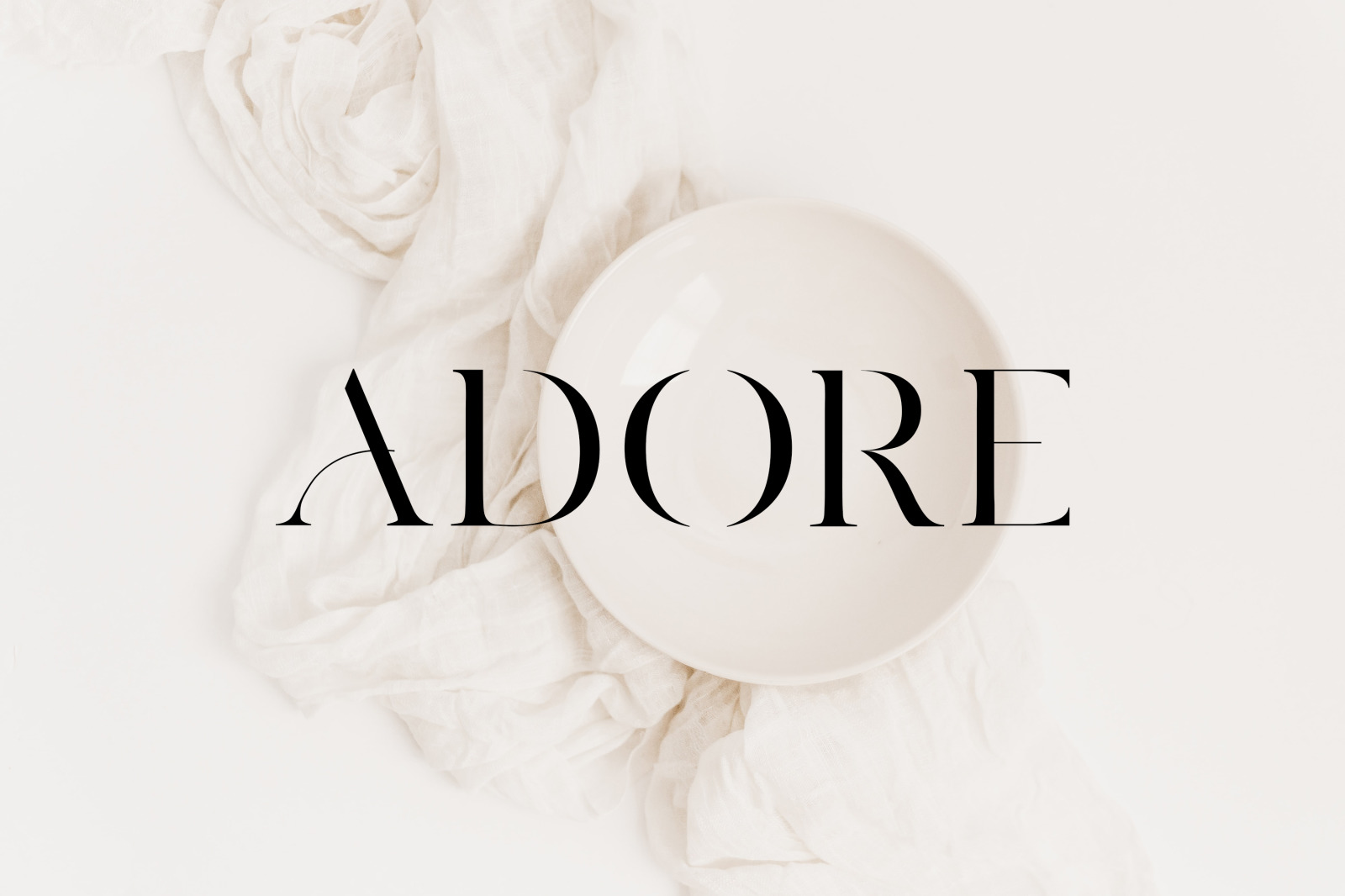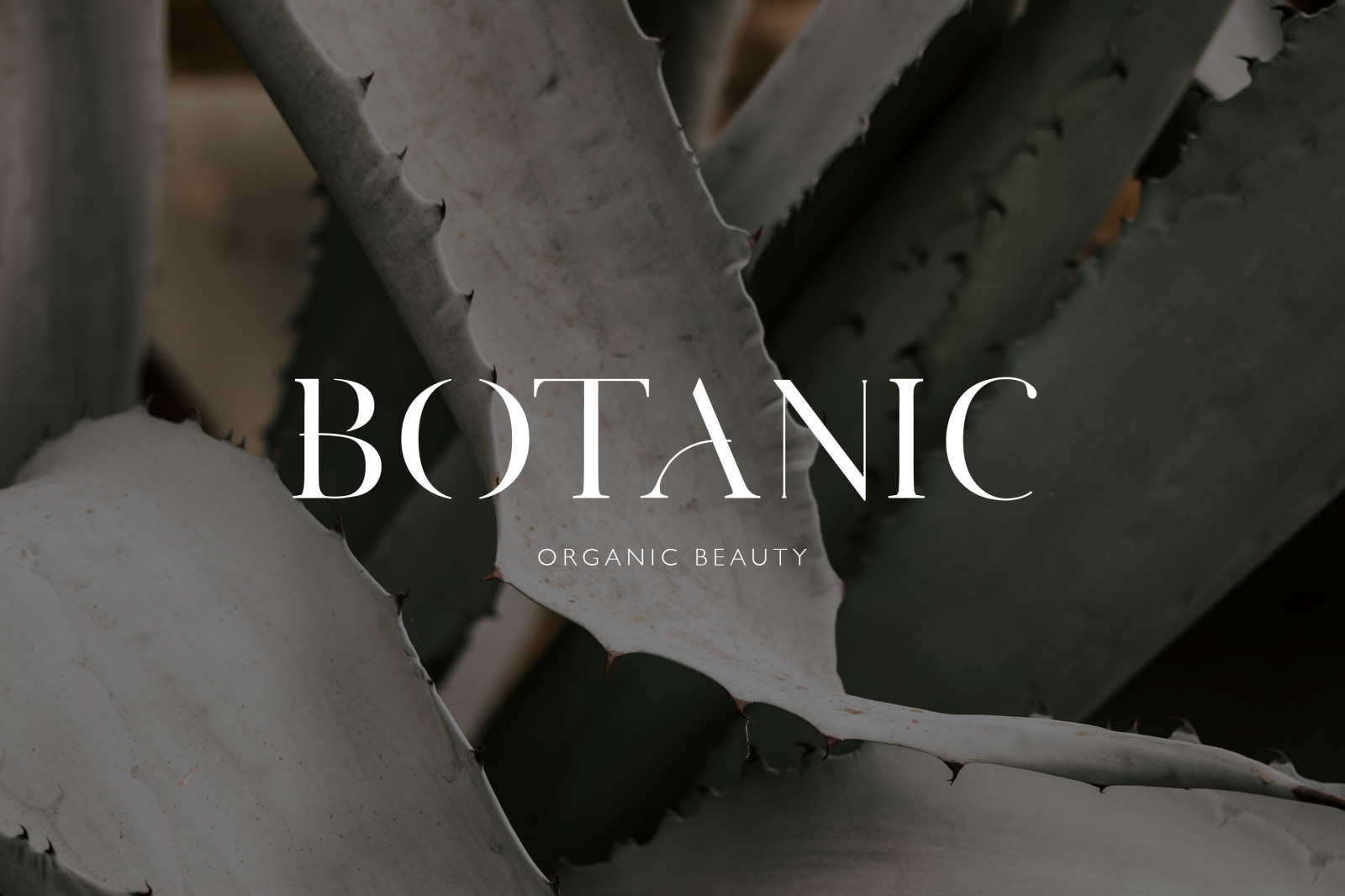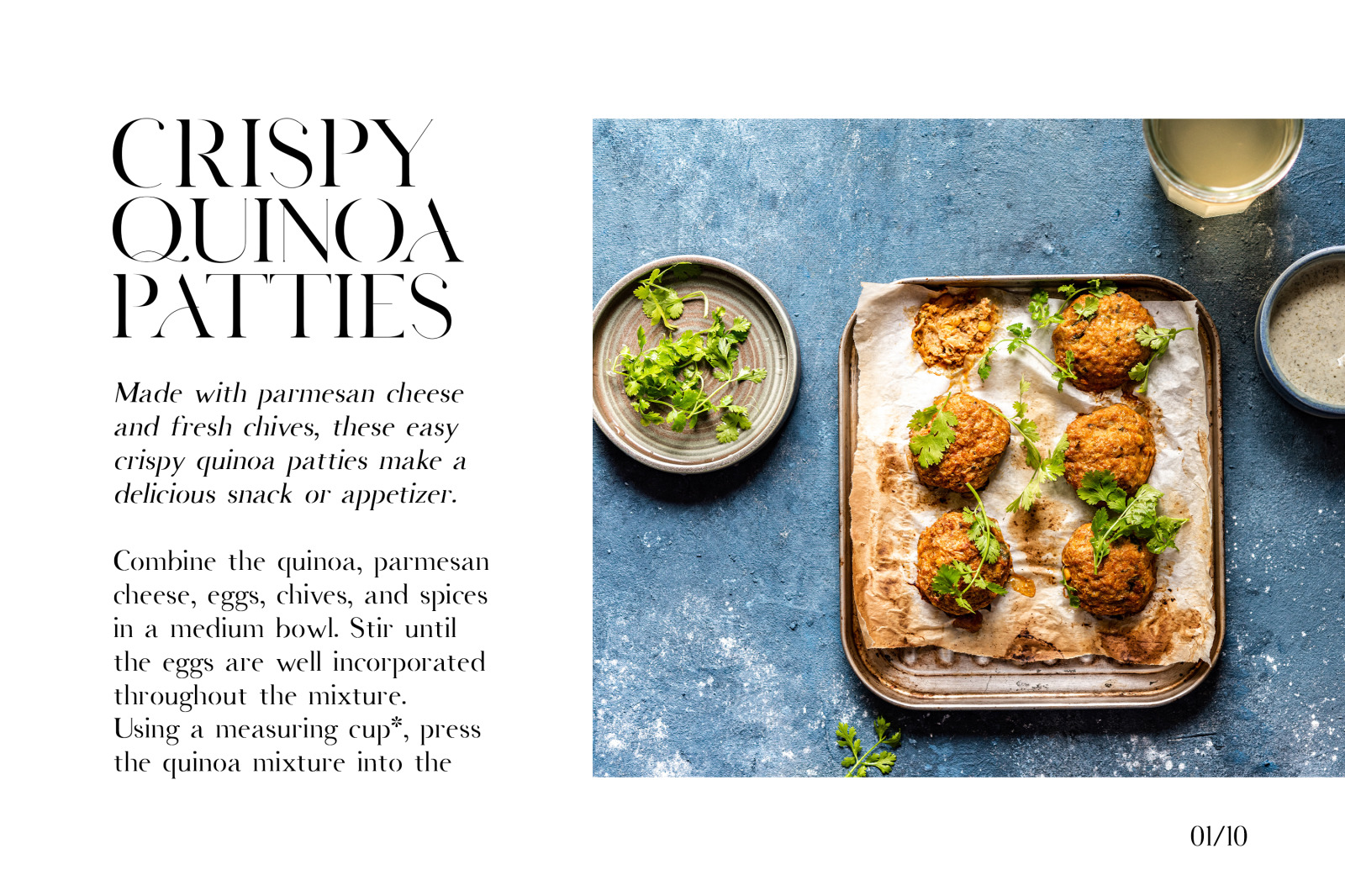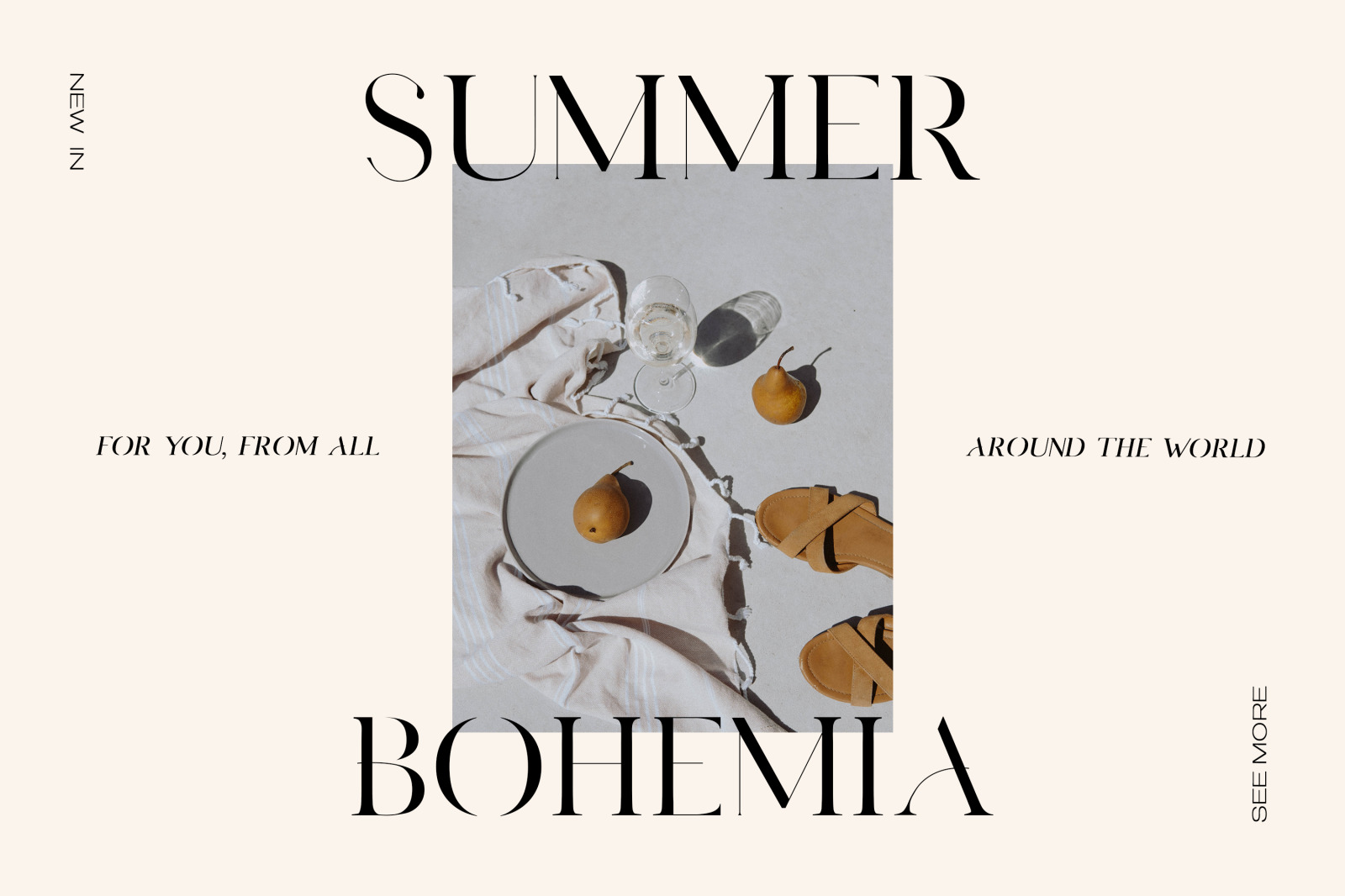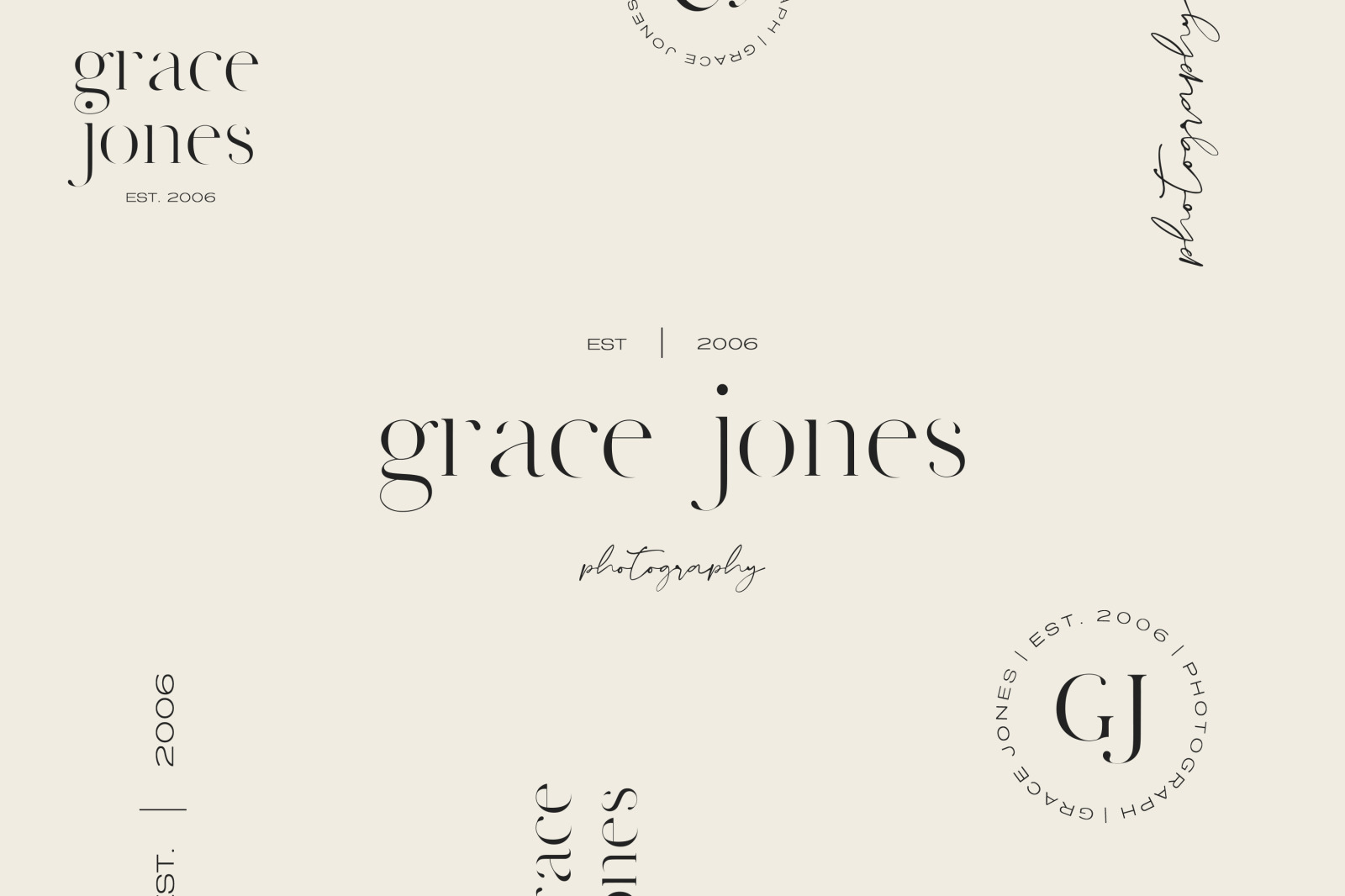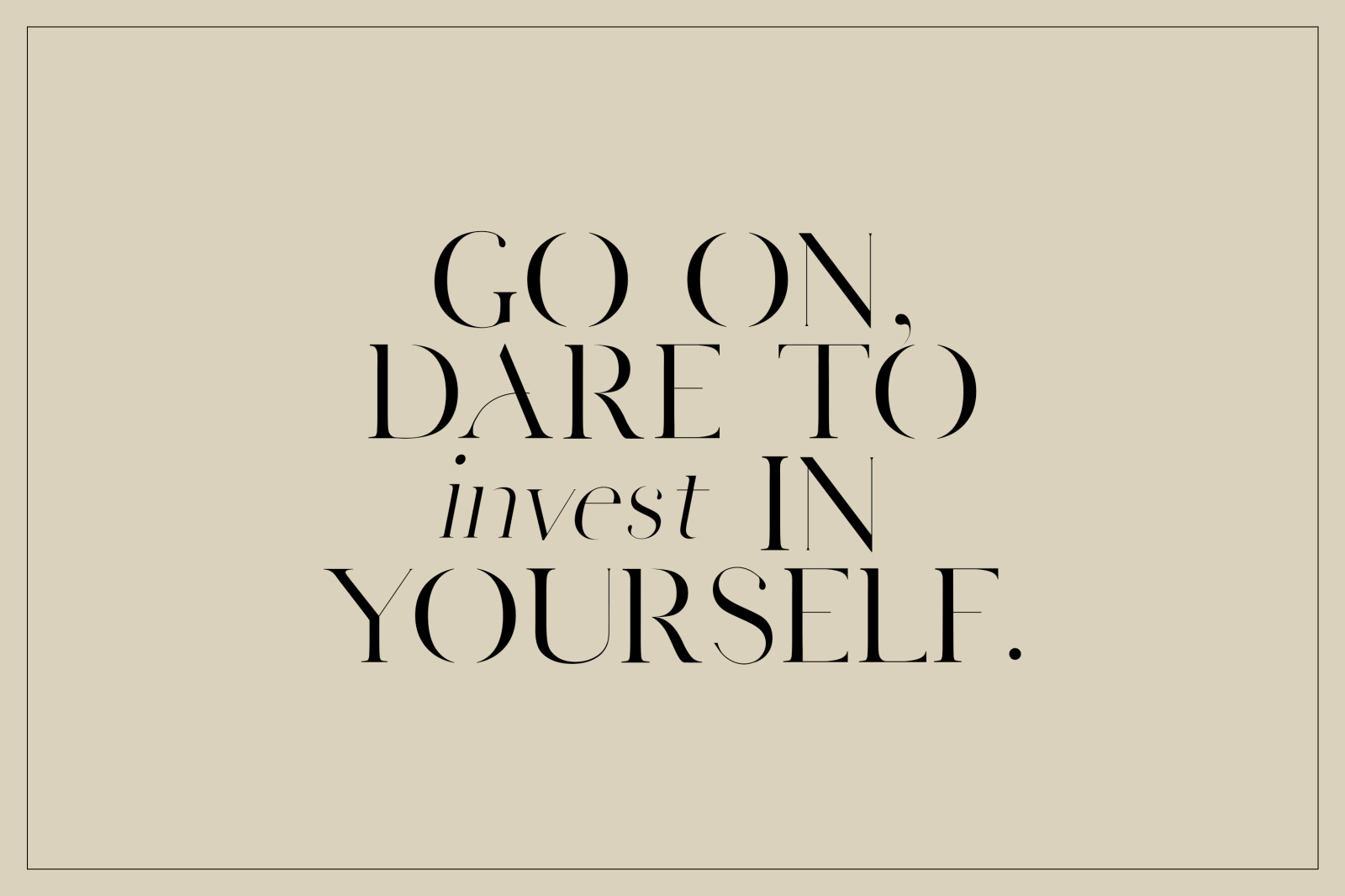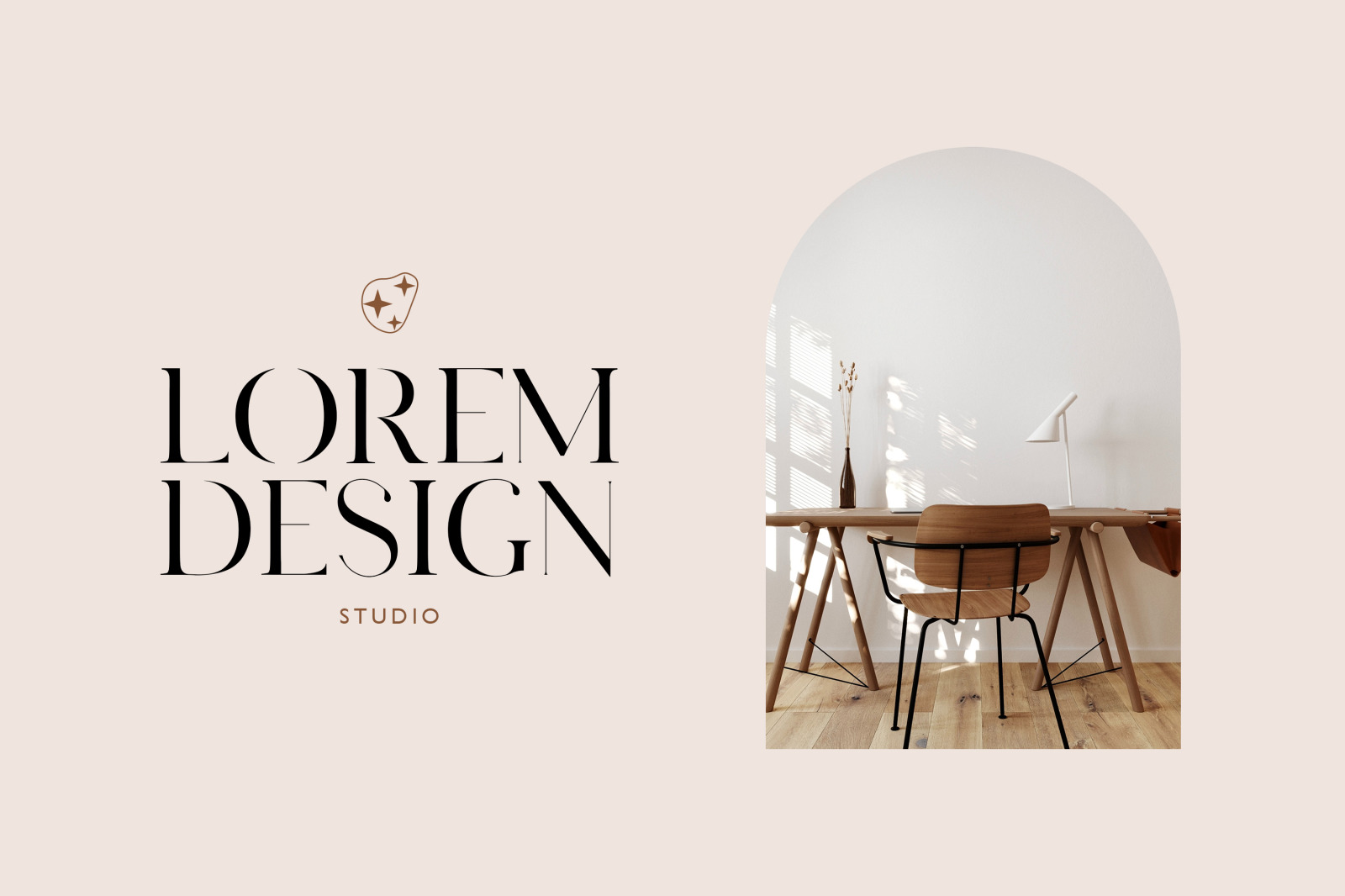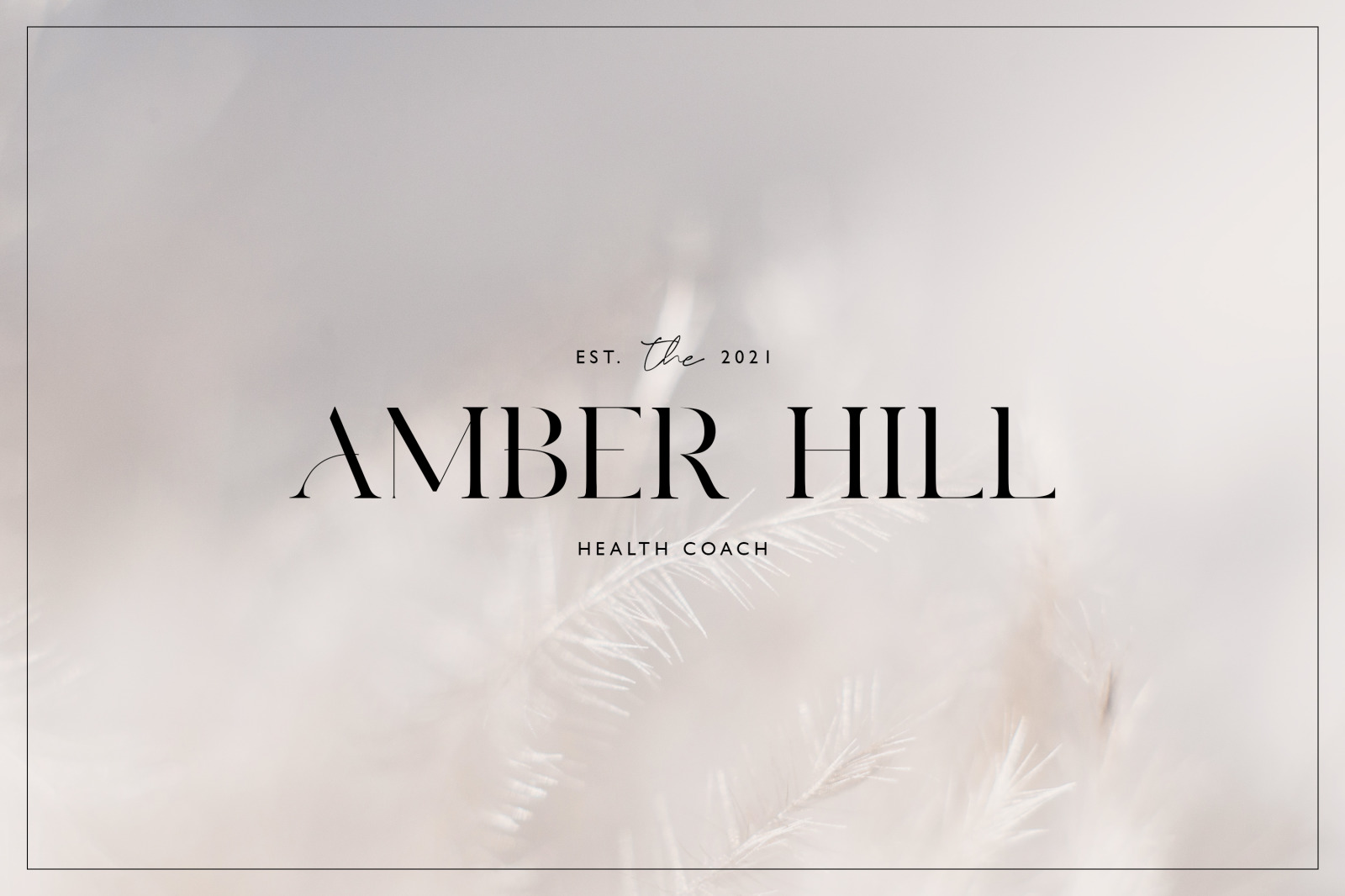
Adore Serif Font
Adore font is an elegant serif typeface with delicate details. This neat font can contribute to the modern and fashionable appeal of the brand.
Upper/Lowercase, Numbers, Punctuations.
Regular, Italic, Bold, Alternate, Condensed.